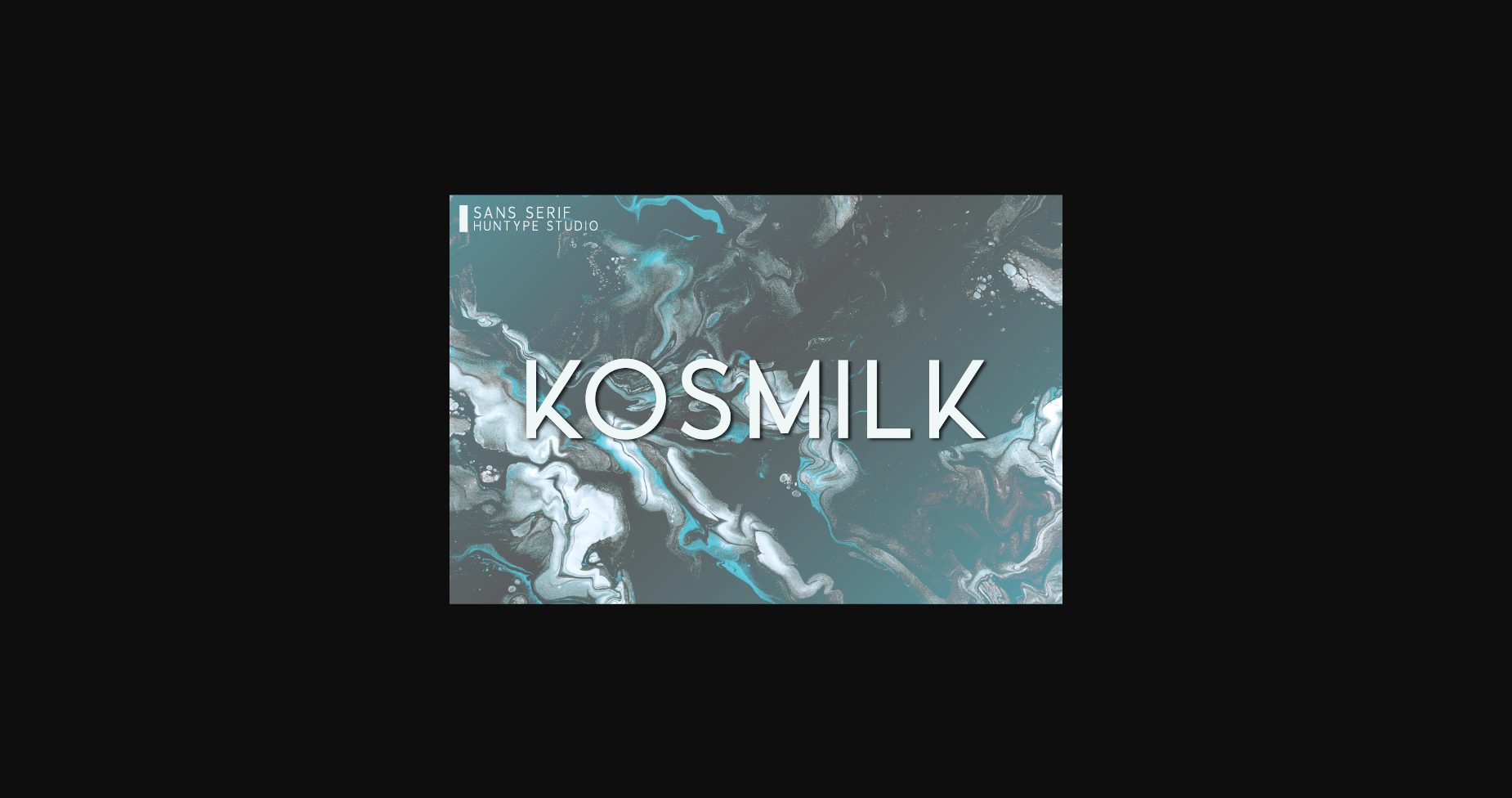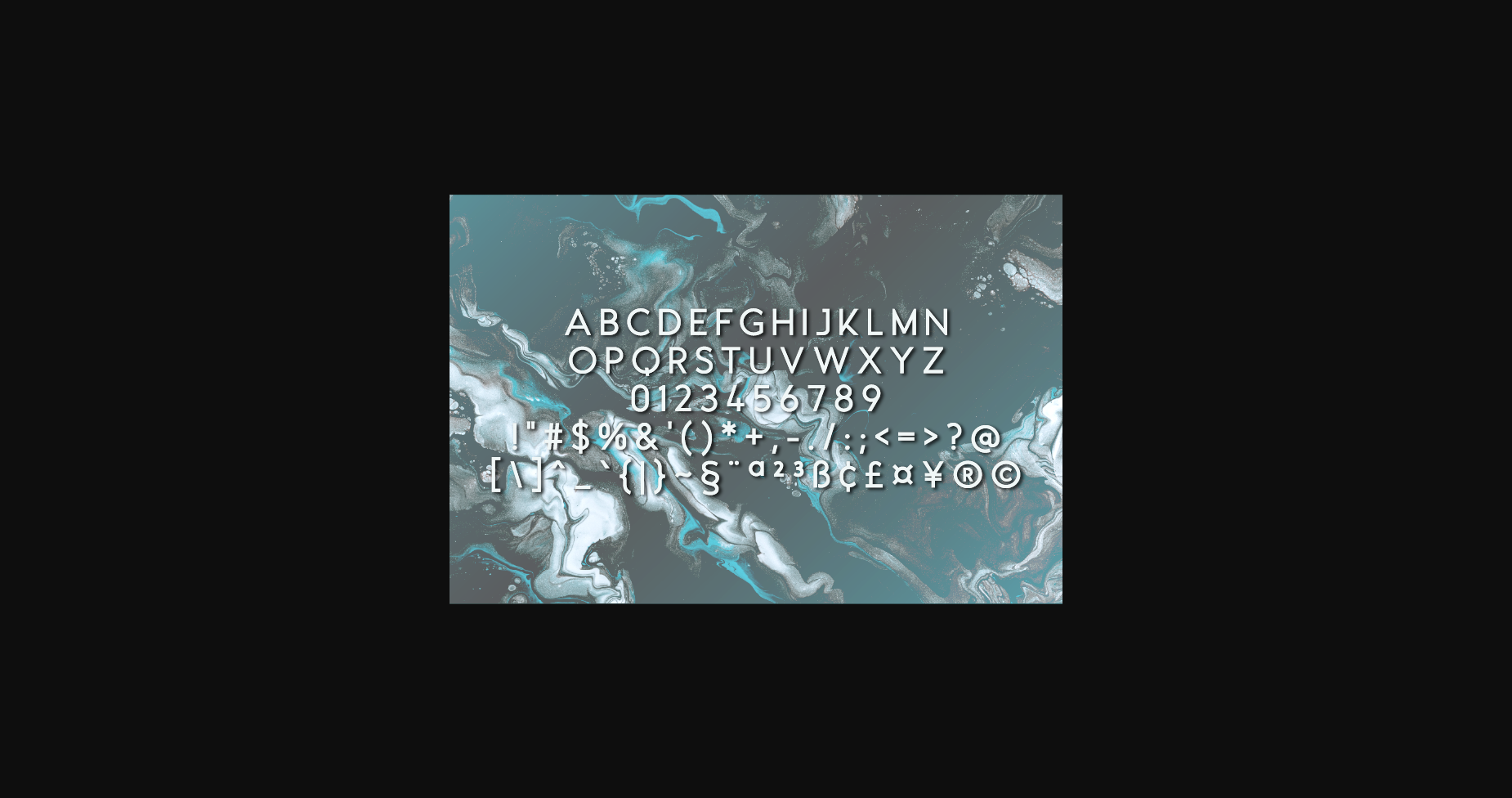
Kosmilk Font
About Kosmilk Font
Kosmilk is a thin lettered and simple sans serif font. With smooth and clean lines, this font works beautifully for logos, branding, and web headings.